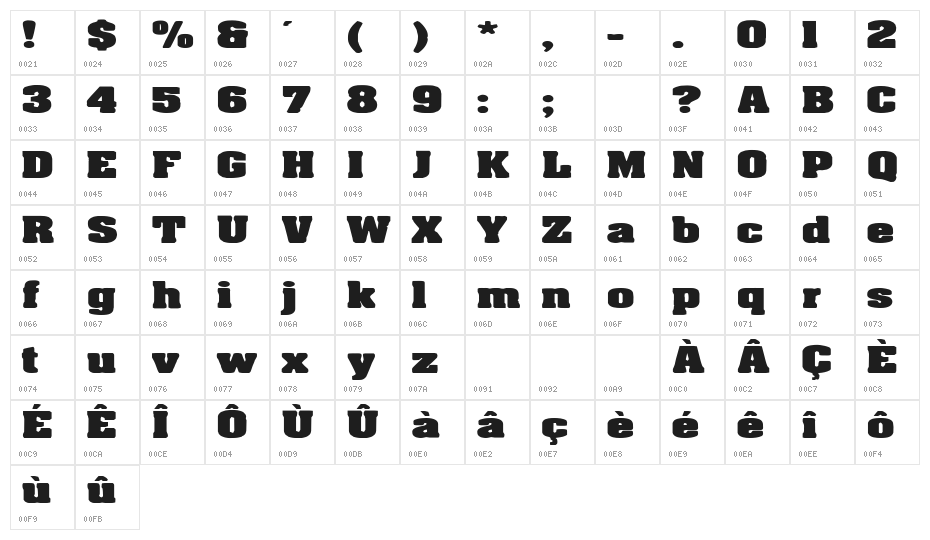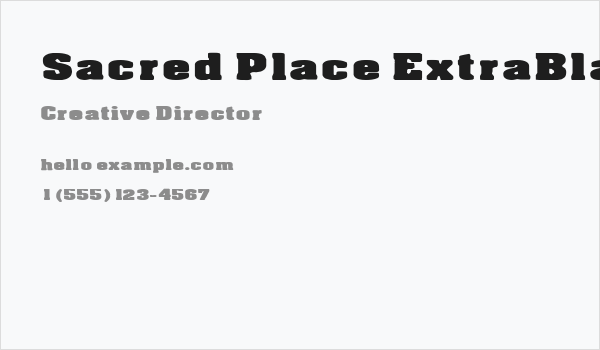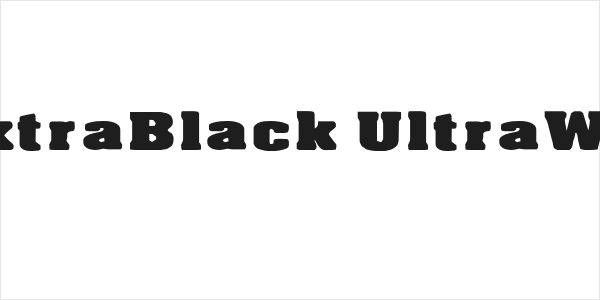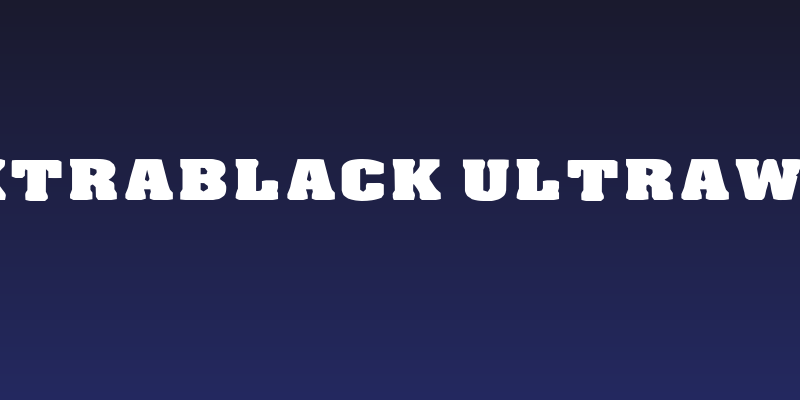
Sacred Place ExtraBlack UltraWide Extra Large Font
Sacred Place ExtraBlack UltraWide Extra Large Description
This font features an ultra-bold and wide design, characterized by thick, heavy strokes and a strong presence. The letters are robust and impactful, making them ideal for attention-grabbing headlines and titles. The uppercase and lowercase letters maintain a consistent weight and width, providing a uniform appearance across the alphabet. The numerals and special characters are equally bold, ensuring readability and emphasis. The overall style is decorative and modern, with a touch of vintage flair due to its exaggerated width and weight.
| Proposed Projects | Ideal for posters, branding, logos, and any design requiring a bold statement. |